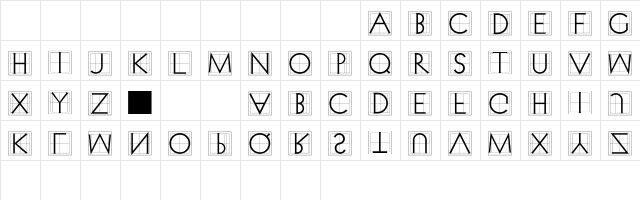
XperimentypoThree Squares Free Font
XperimentypoThree Squares
Style: Squares
Design Context for XperimentypoThree
XperimentypoThree is a composed and adaptable typeface that performs quietly and consistently across a wide range of design contexts.